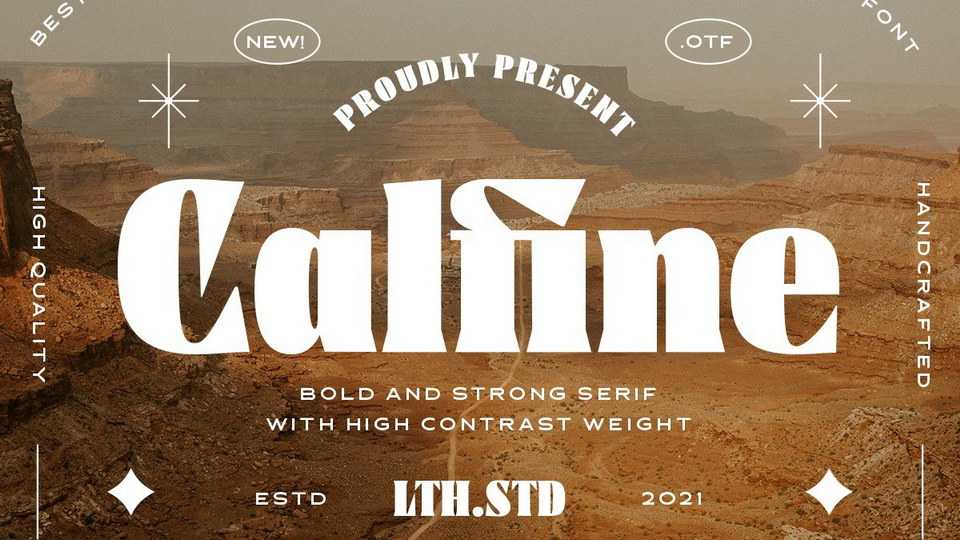
Download Calfine font, a bold and strong serif with high contrast weight. Calfine font very suitable to be used as a title or display, make it looks great and stands from the crowd.